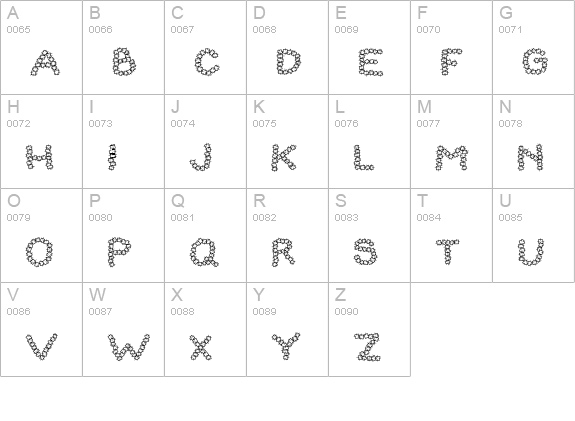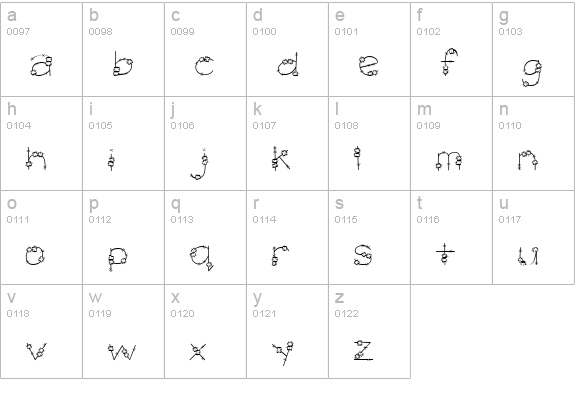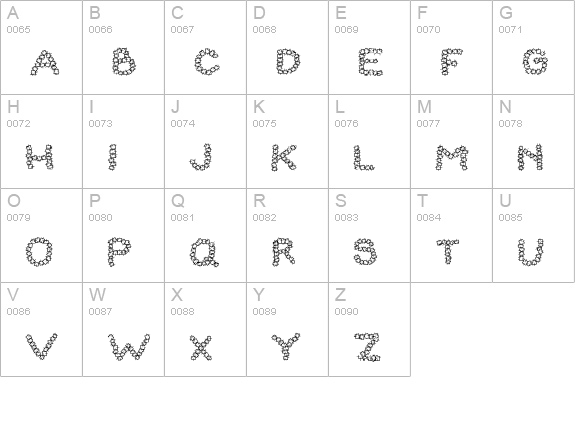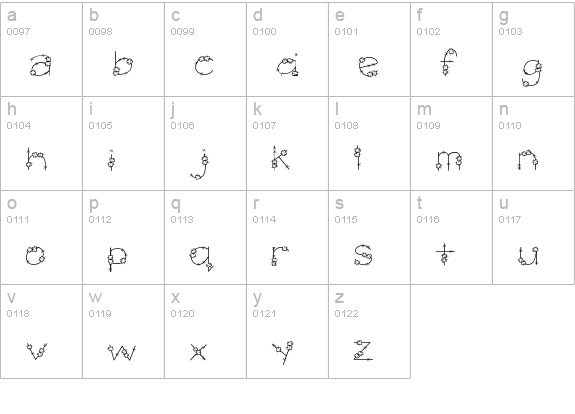
CK Quilt Squares Font Details
Introducing CK Quilt Squares font, a charming and versatile typeface that brings a unique touch to any design project. This playful font features a hand-drawn style with quirky square shapes, perfect for adding a fun and whimsical element to your creations. CK Quilt Squares is a free font that is sure to stand out and make a statement. This delightful font is ideal for a variety of projects, from greeting cards and invitations to posters and social media graphics. Its bold and eye-catching appearance ensures that your message will be noticed and remembered. CK Quilt Squares is a must-have font for anyone looking to add a touch of creativity and originality to their designs. Best of all, CK Quilt Squares font is freely available to download at FontsMarket.com. So why wait? Add this charming and playful font to your collection today and let your creativity shine!